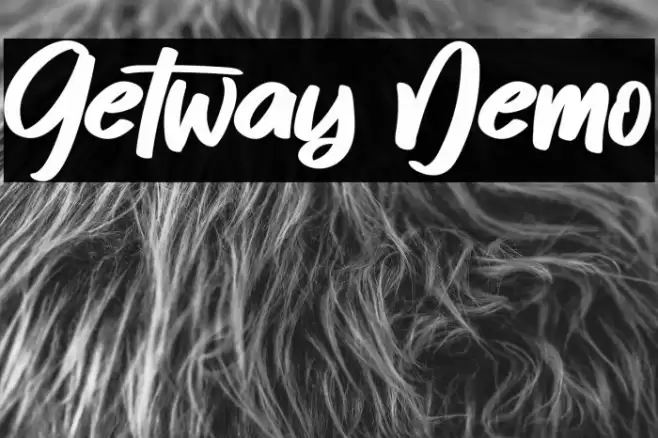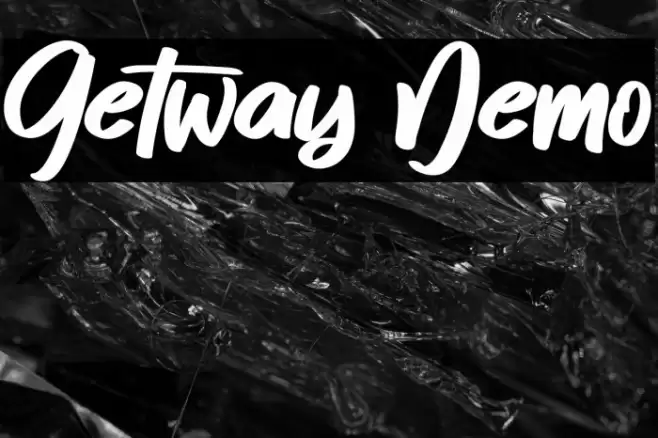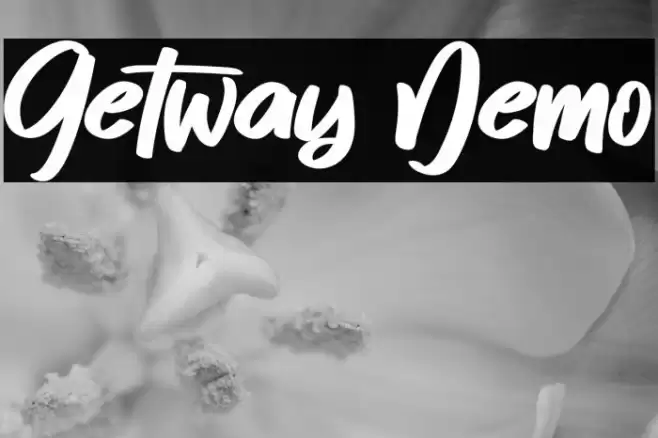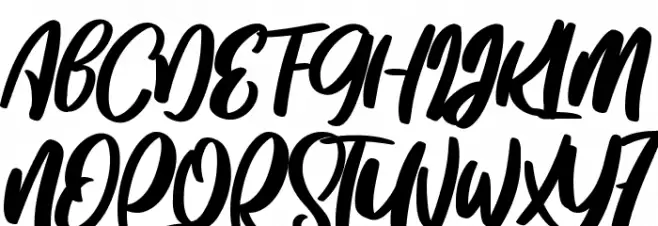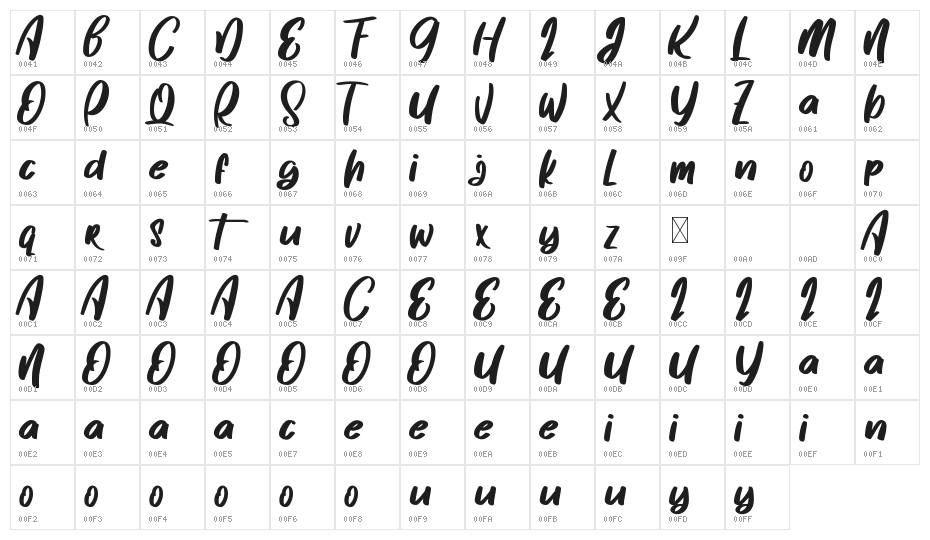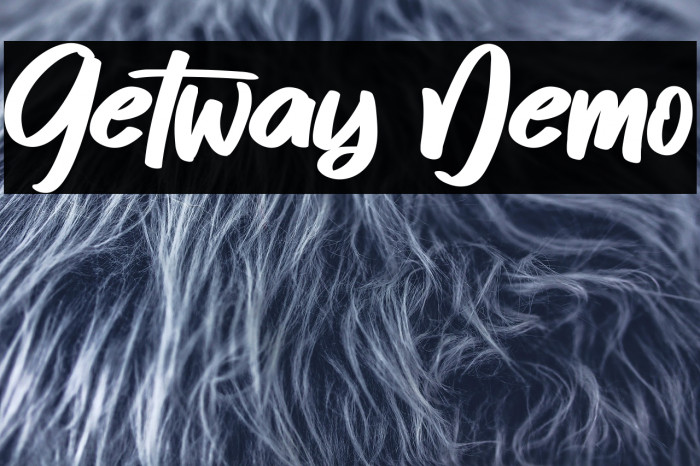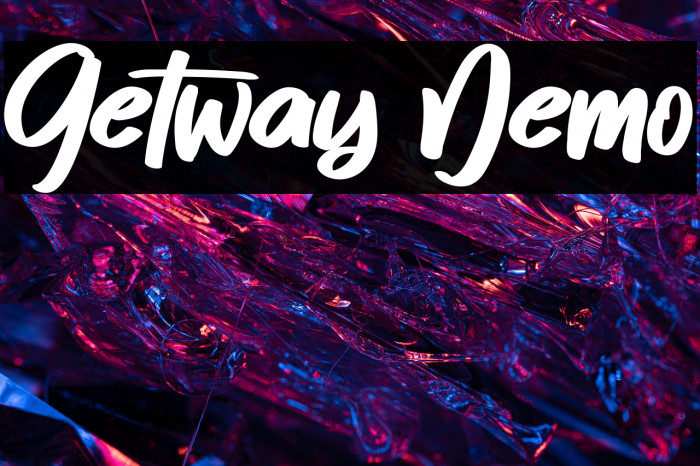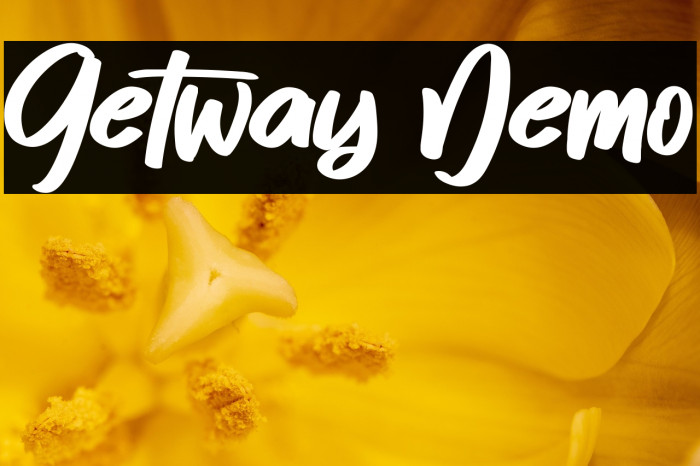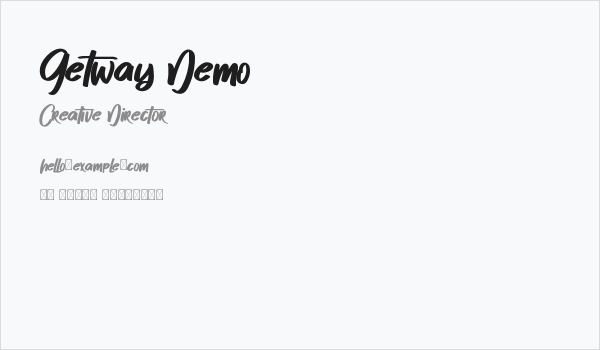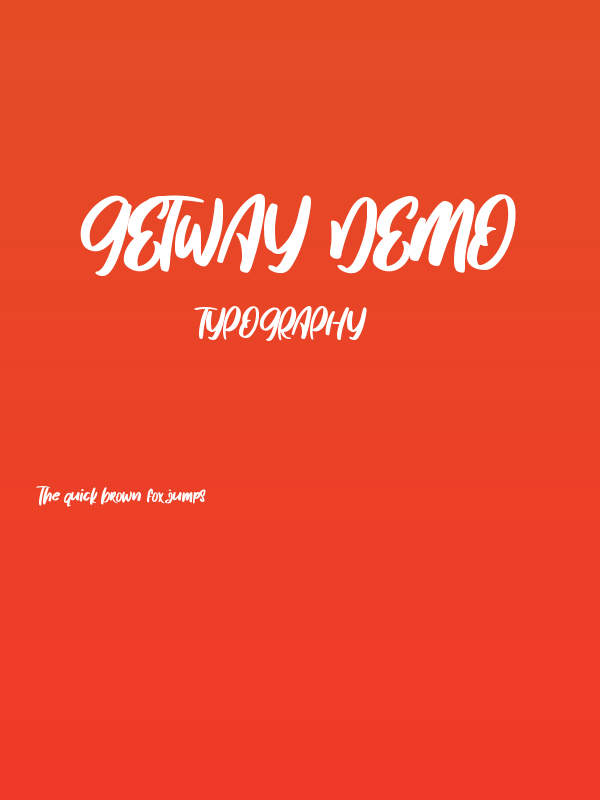
Getway Demo Font
Getway Demo Description
This font features a bold and expressive brush script style, characterized by its fluid and dynamic strokes. The letters are crafted with a sense of movement, giving them a lively and energetic appearance. The uppercase and lowercase letters maintain a consistent style, with some variations in stroke width that add to the font's charm. The characters are closely spaced, enhancing the cohesive look of the text. This font is ideal for projects that require a personal and artistic touch, such as invitations, posters, and branding materials. Its boldness ensures readability while maintaining a unique and stylish flair.
A bold, expressive brush script font with dynamic strokes from Uncategorized fonts.
- Proposed Projects: Ideal for invitations, posters, branding, and artistic projects.
- Character Spacing: Tight